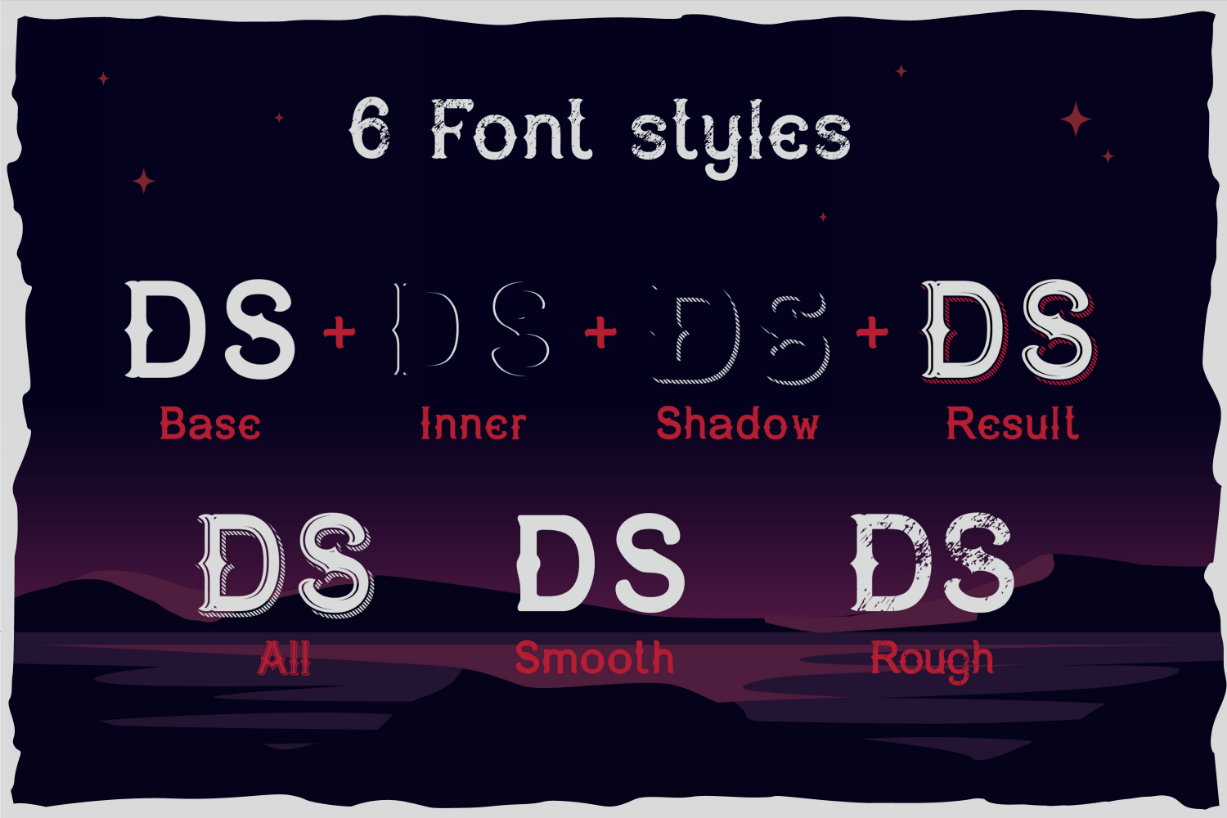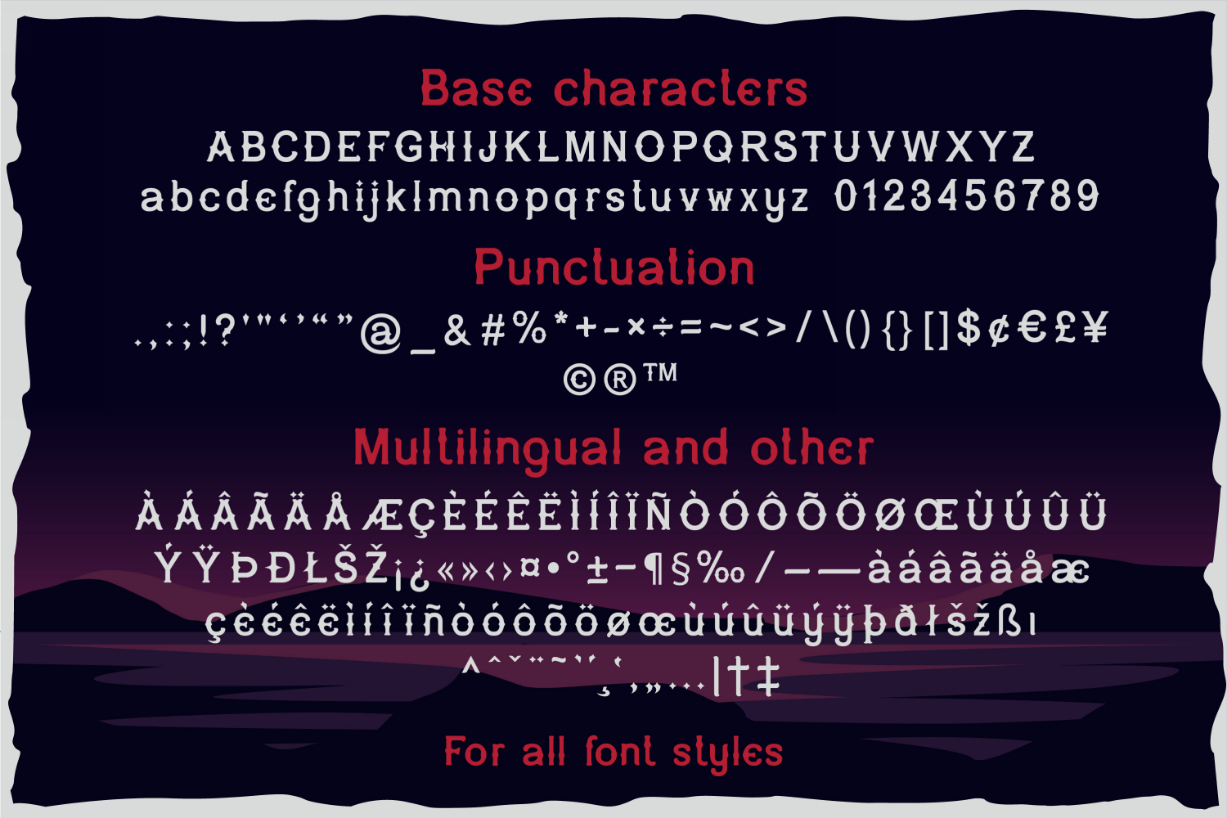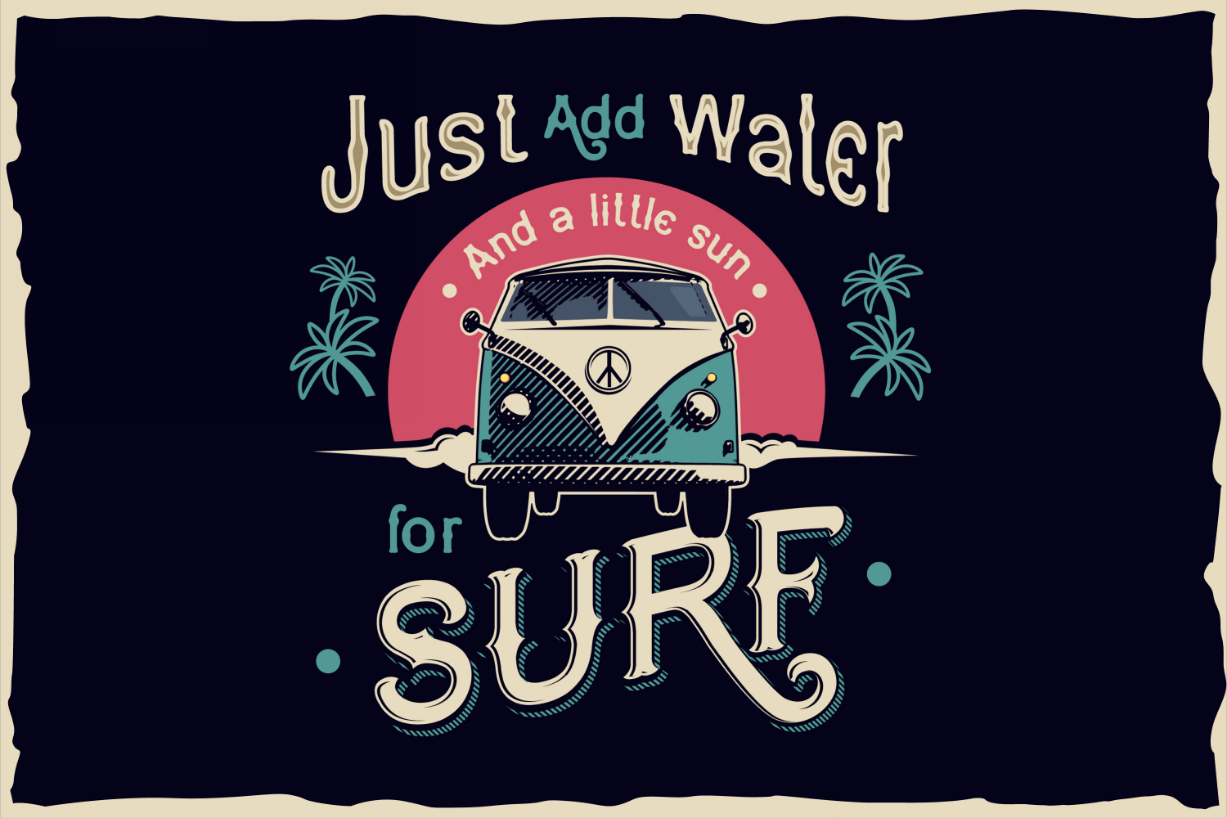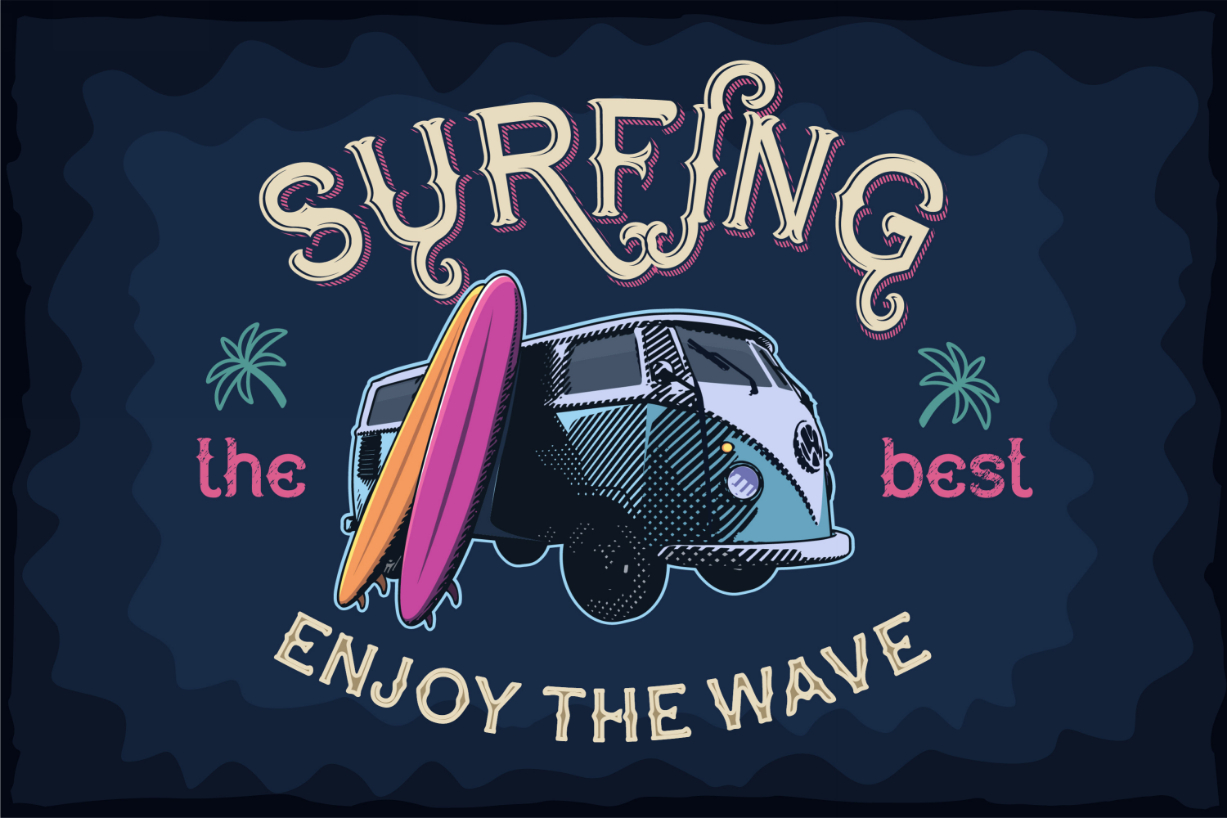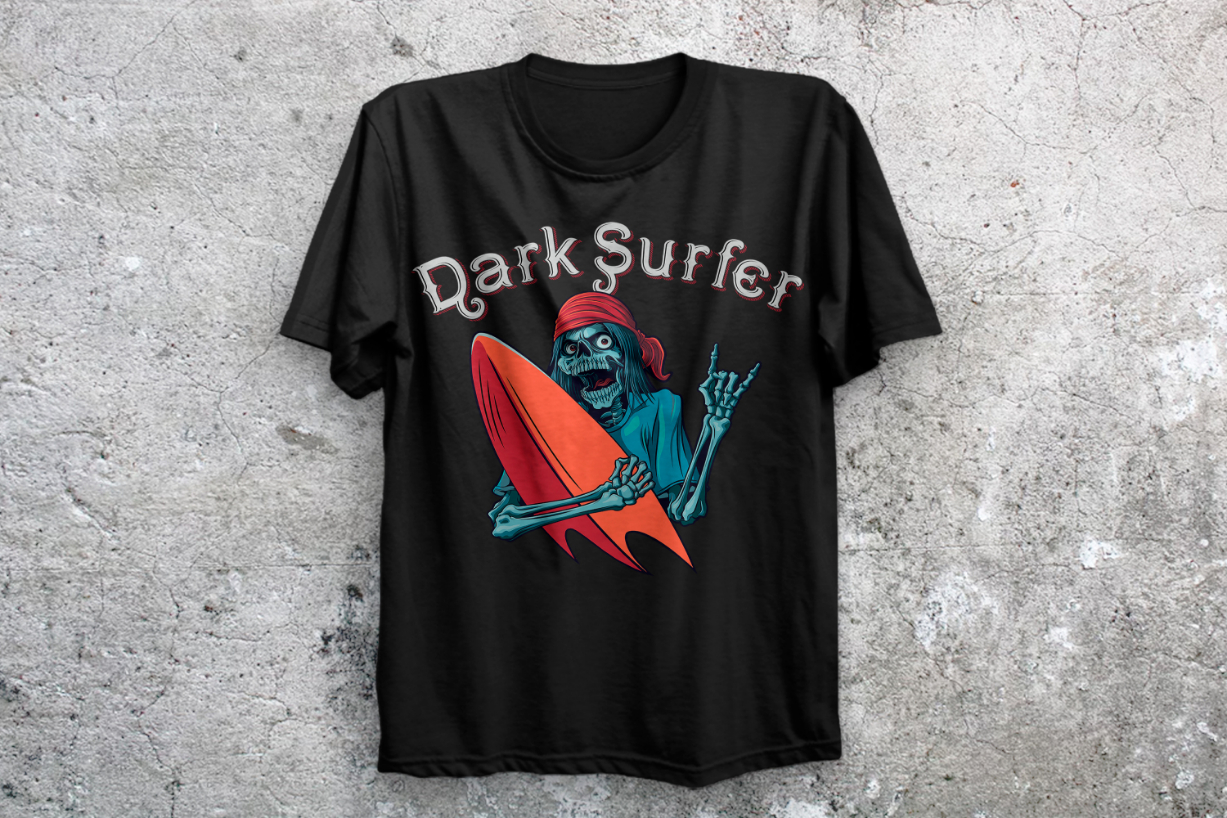
Dark Surfer Font
About Dark Surfer Font
Dark Surfer is a bold, thick lettered blackletter font. This font was particularly crafted for those who need a distinct and imposing look to their designs.